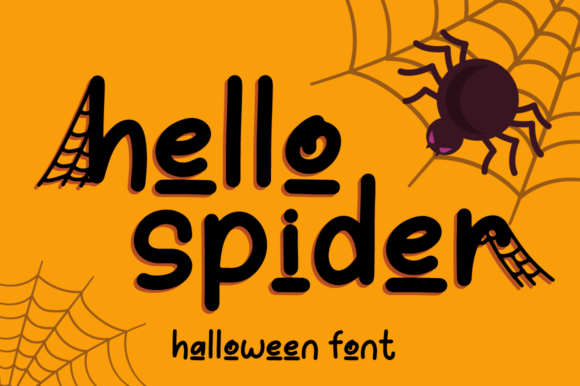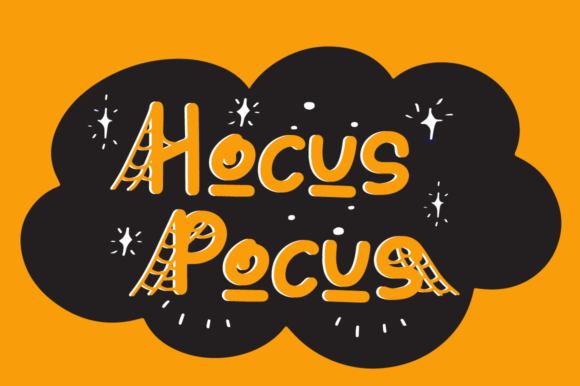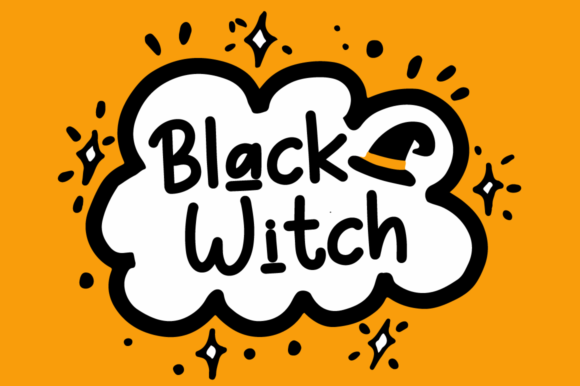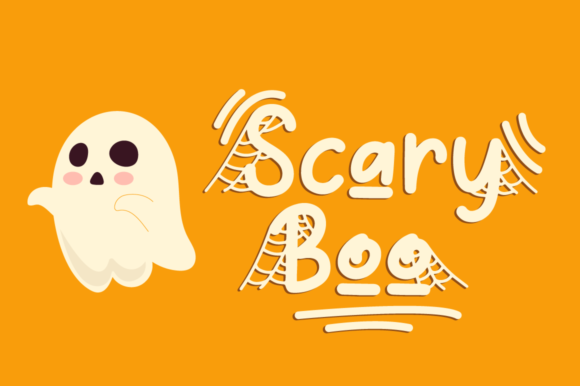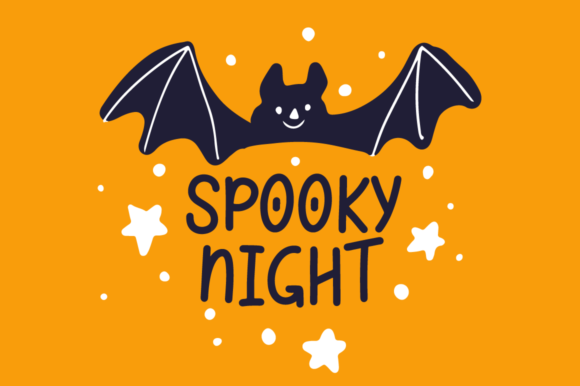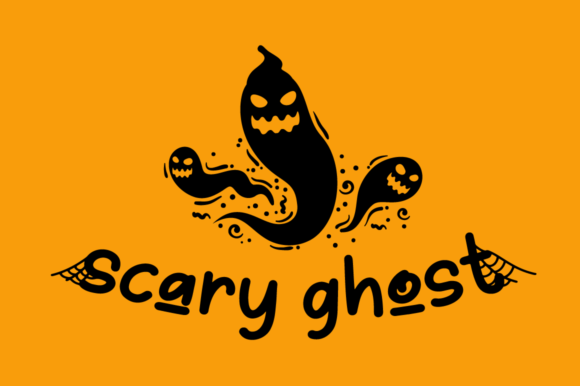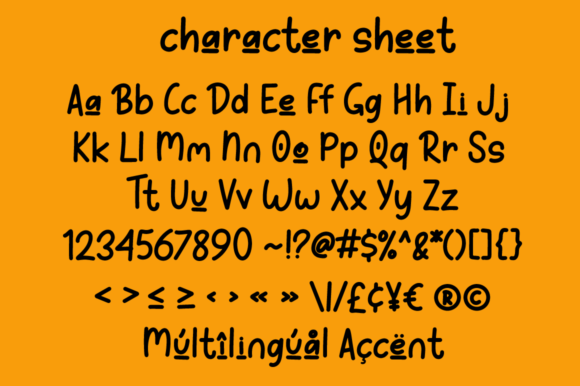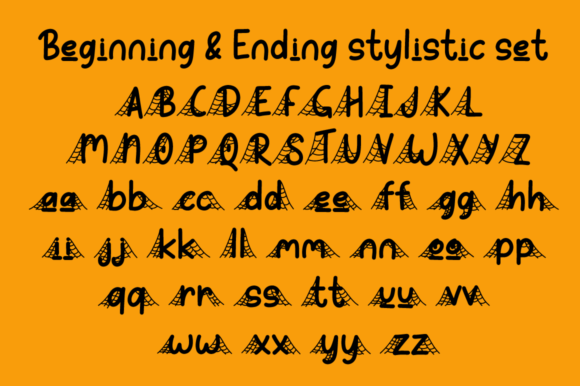
Hello Spider Font
About Hello Spider Font
Hello Spider is a great handwritten font. It is perfect for Halloween’s projects. Use it for logos, invitations, stationery, social media posts and much more!